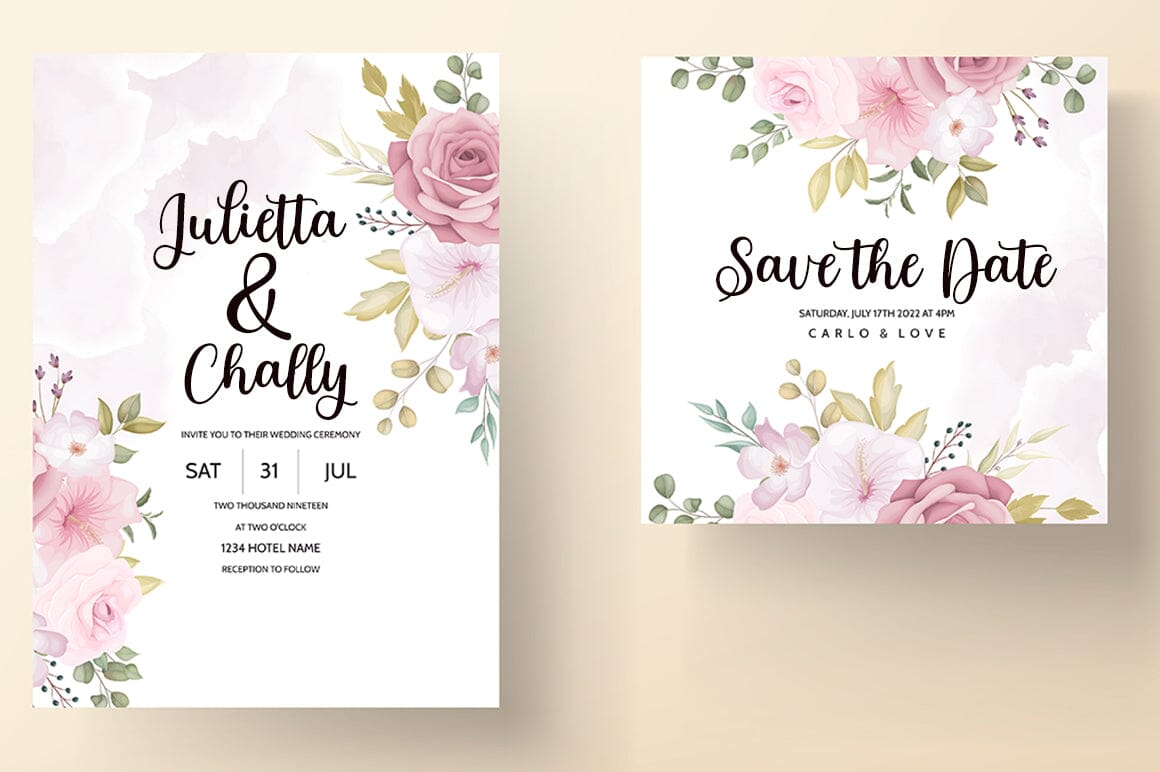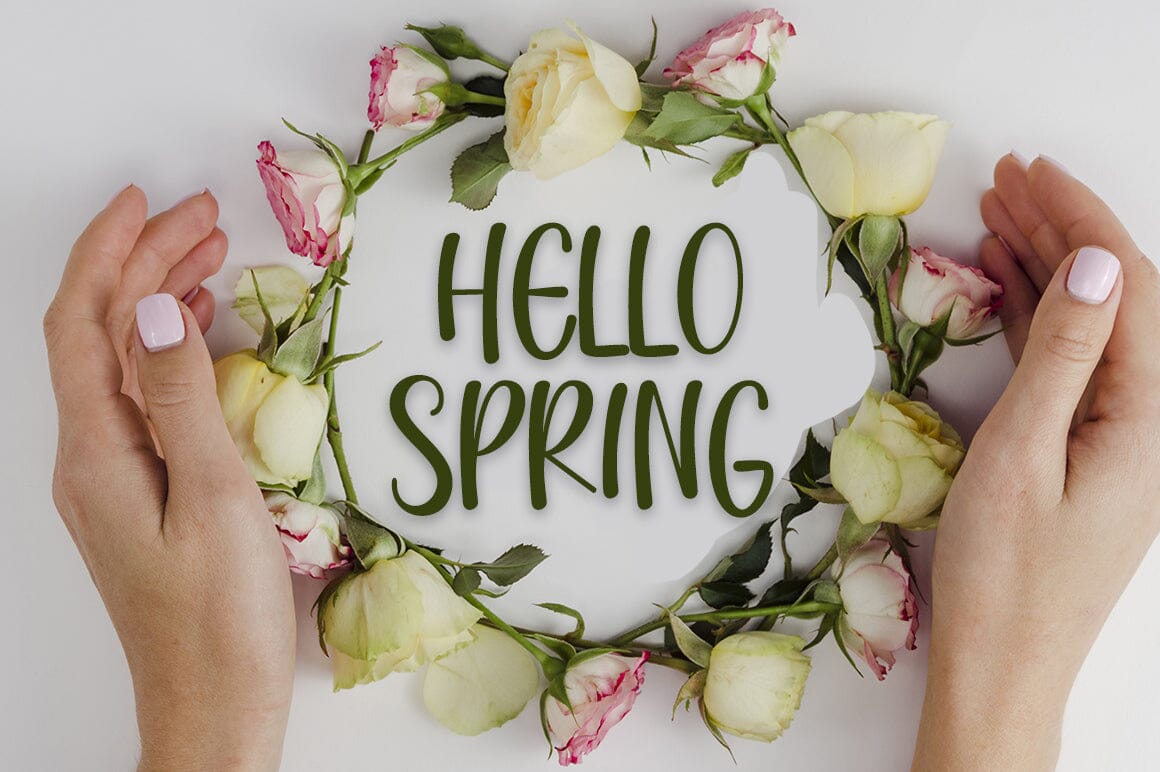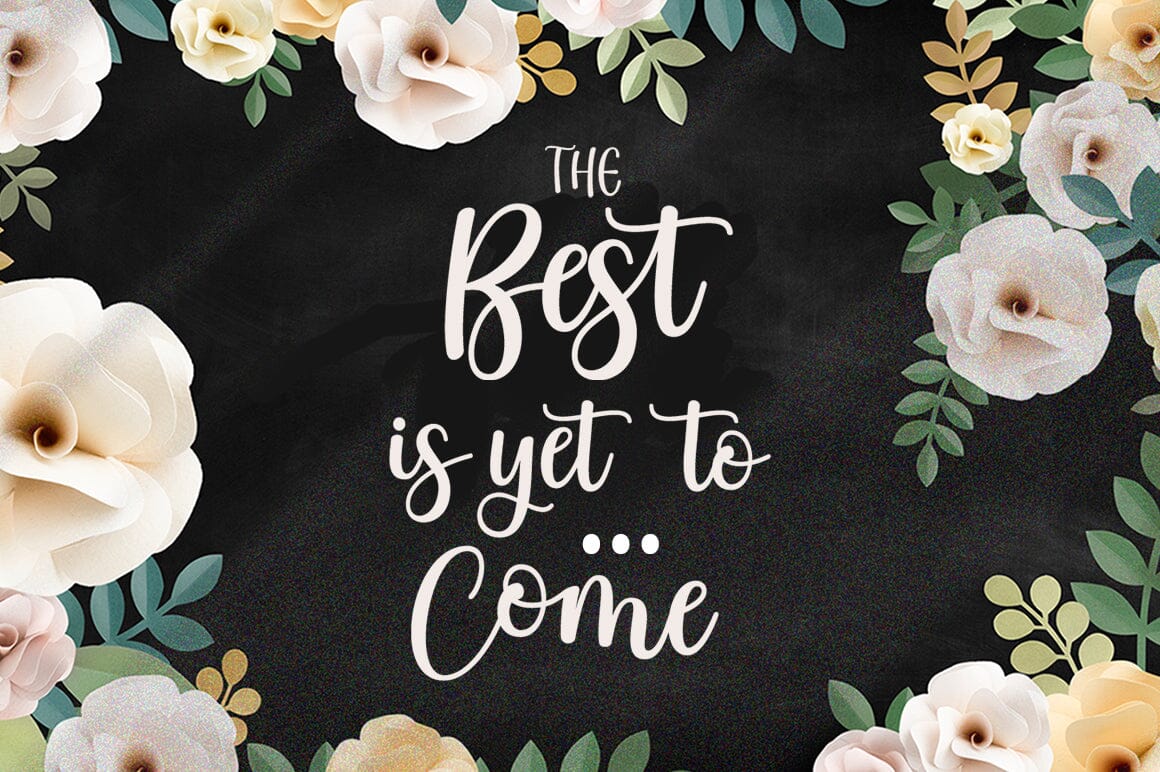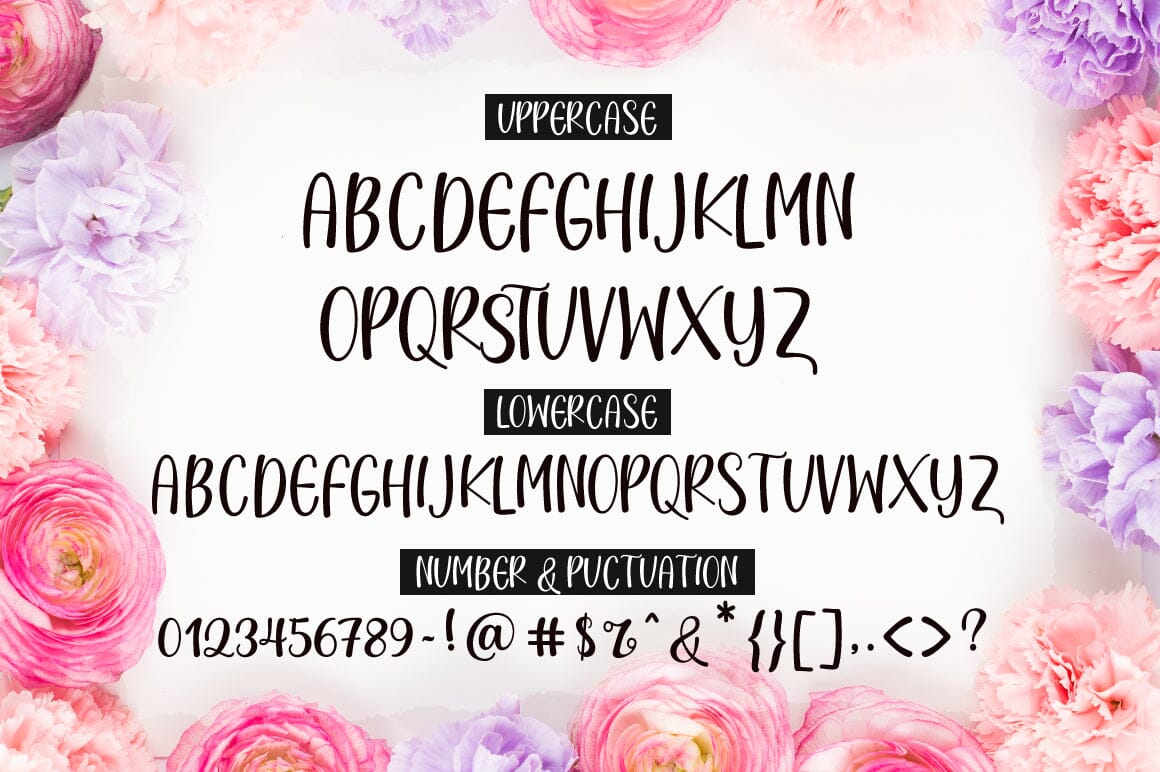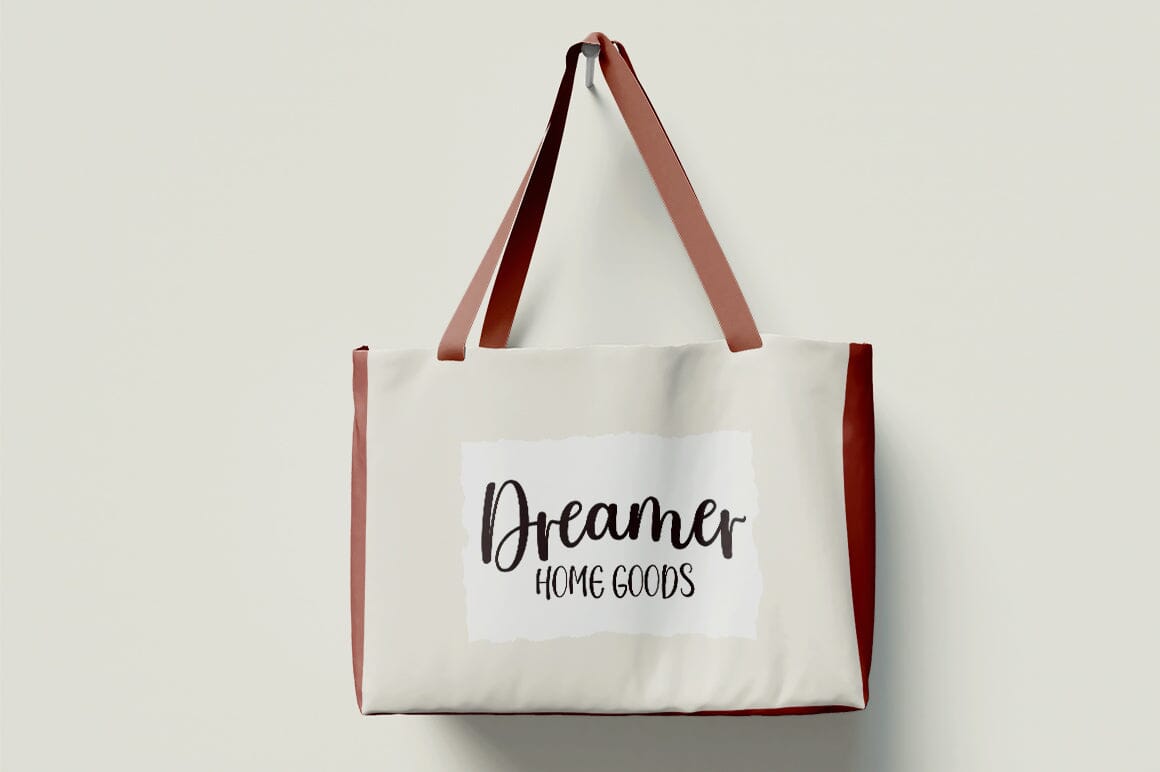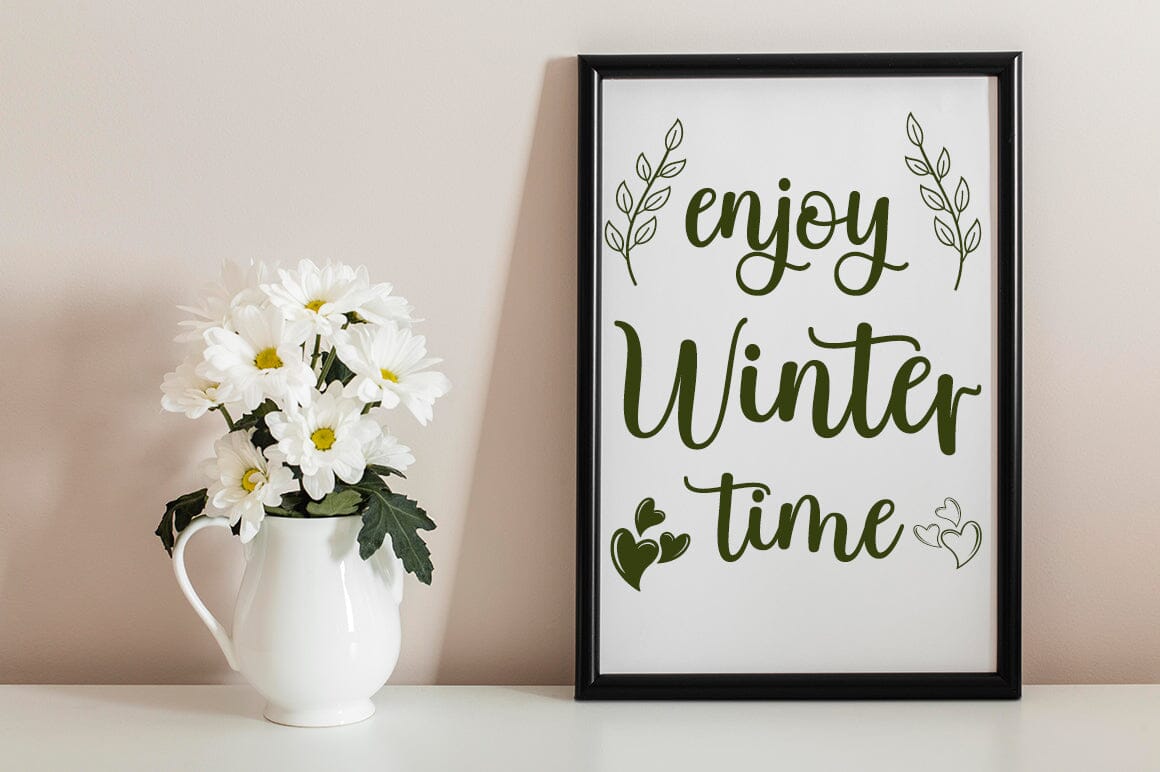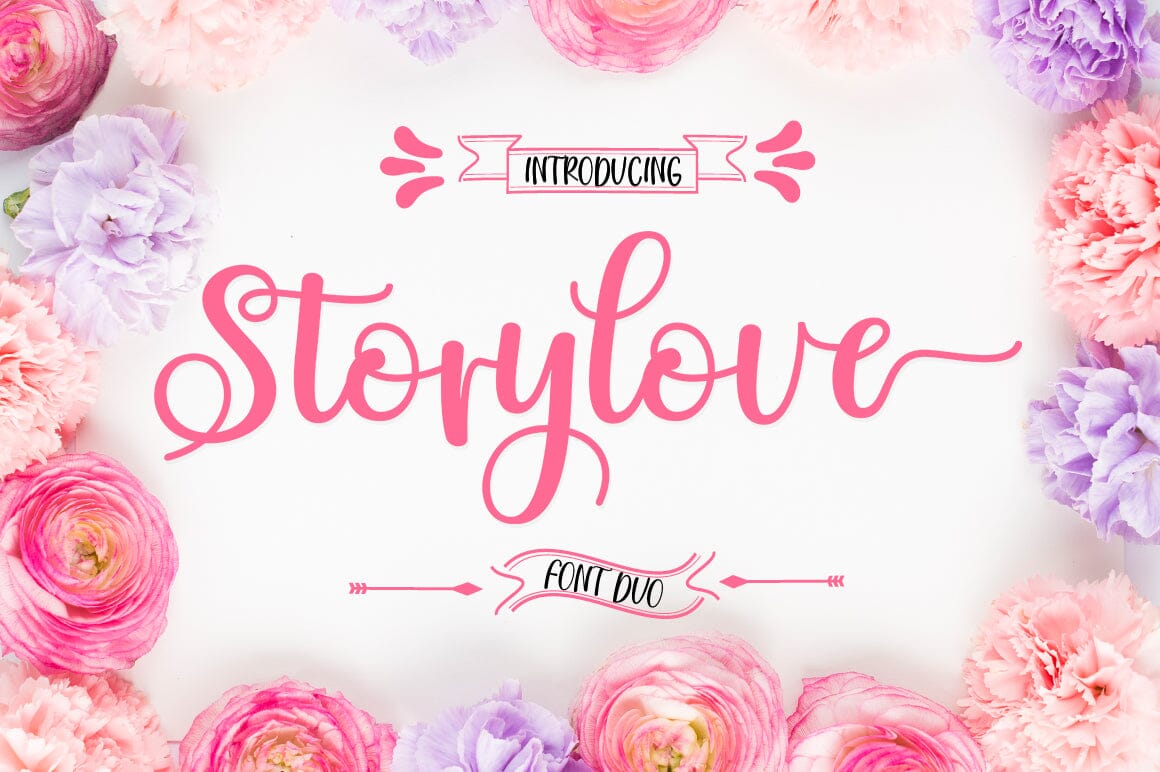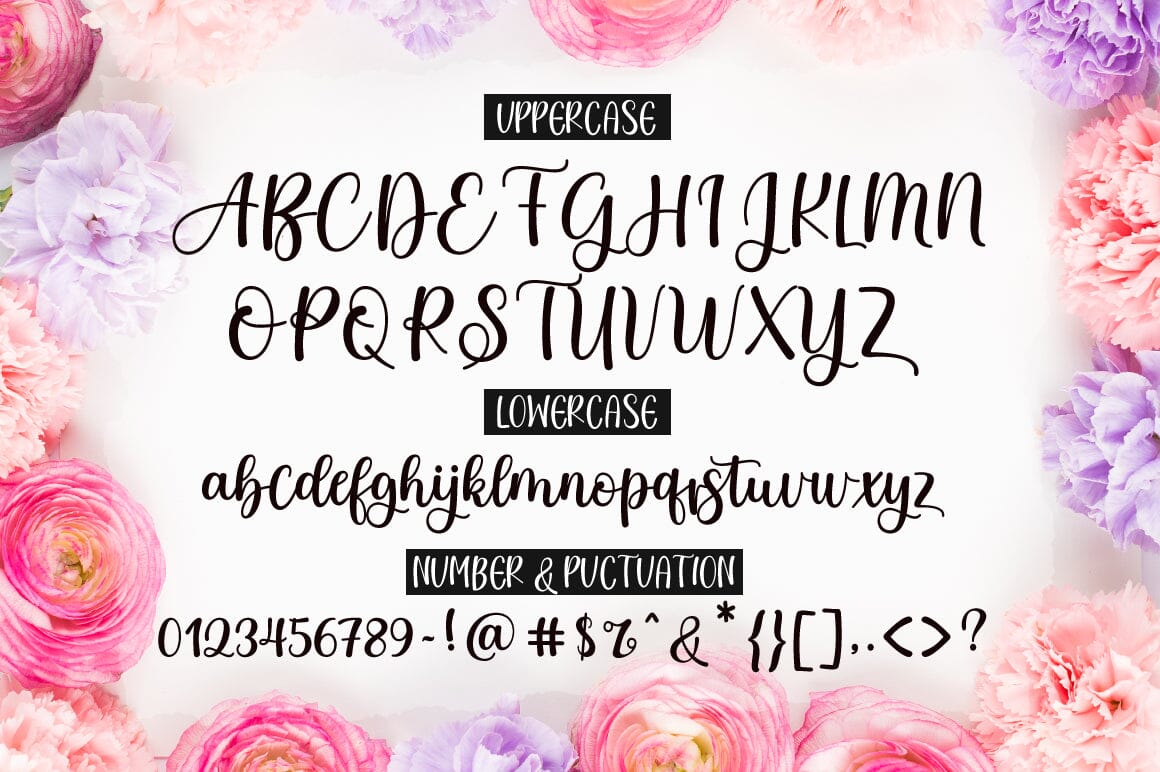
Story love Script Font Duo
Story love Script Font Duo is a new modern script font with an irregular base line. Trendy and feminine style. Story love Script Font Duo looks beautiful in wedding invitations, thank-you cards, quotes, greeting cards, logos, business cards, and more. Perfect for use in ink or watercolors. Including initial letters and terminals, alternatives and support for many languages. Files include: Story love Script.OTF Story love Script.TTF Story love Sans.OTF Story love Sans.TTF To activate the OpenType Stylistic alternative, you need a program that supports OpenType features such as Adobe Illustrator CS, Adobe Indesign & CorelDraw X6-X7, Microsoft Word 2010 or newer versions. There are additional ways to access alternatives / swash, using Character Map (Windows), Nexus Fonts (Windows), Font Books (Mac) or software programs such as PopChar (for Windows and Mac).